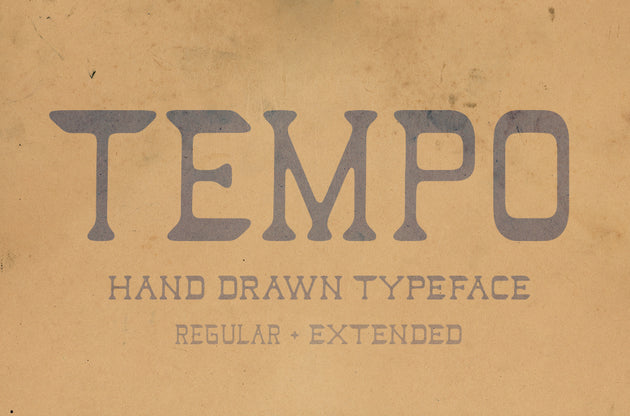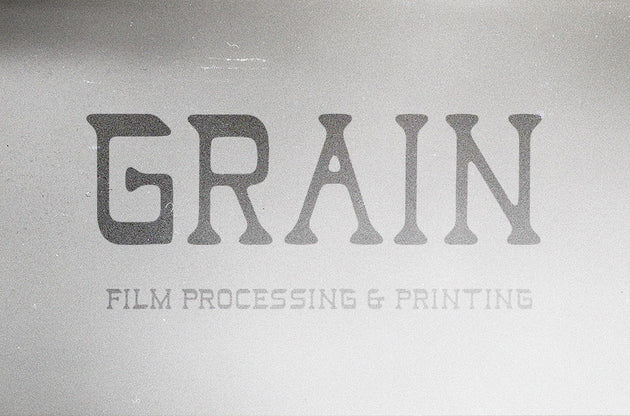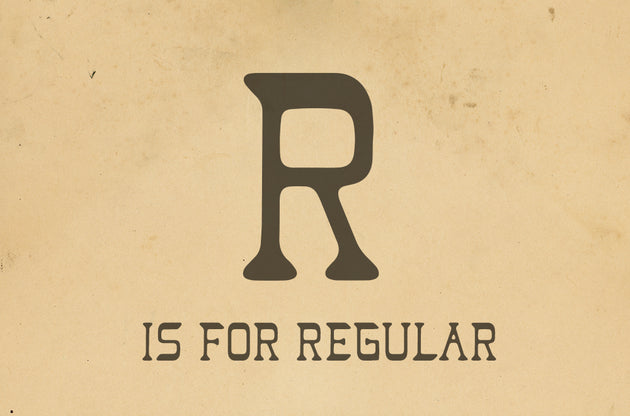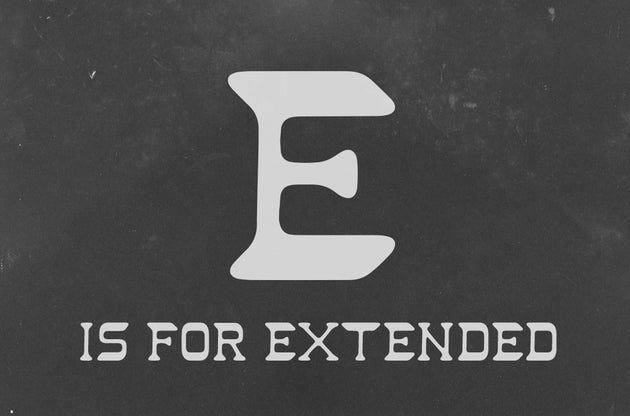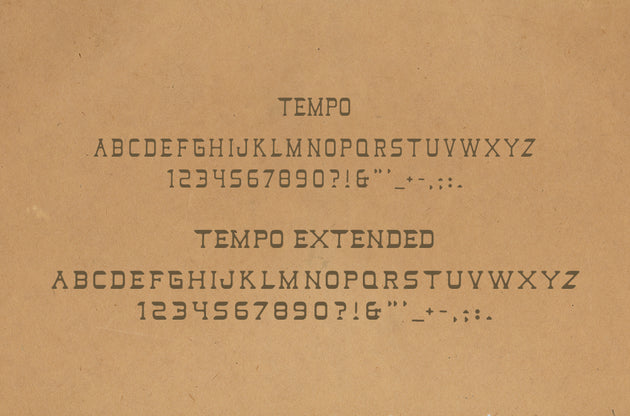
This font looks hand drawn because... it was hand drawn... outside of a computer.
Tempo is a hand drawn typeface available in Regular and Extended. This OTF font was inspired by the lettering on vintage player piano rolls.
Tempo is a vector OTF font that is infinitely scalable. It still possesses the nuance of a hand lettered font, while working just like any other font in your font library.